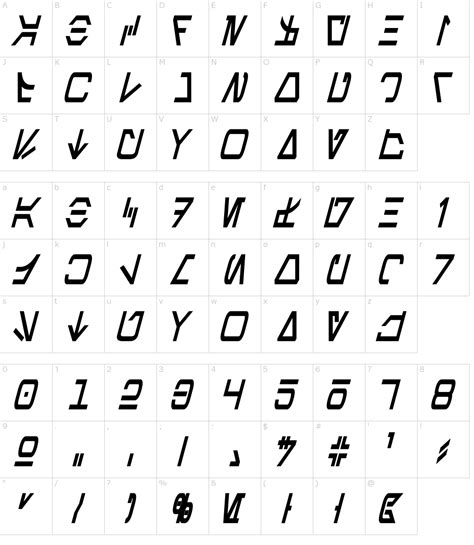
Aurebesh Font
Web this font is based on the legendary star wars galactic standard typeface. Converts english into aurebesh from the star wars universe. Web sith af by aurekfonts. Generate cool and amazing fonts by using aurebesh font generator. 1 to 15 of 26 results. Web want to translate to aurebesh (a.k.a. This is based on the old rpg version and includes all canonical characters. You've come to the right place. Web text generated by us for you. Aurebesh is a fictional language used in the star wars movies.
Web this font is based on the legendary star wars galactic standard typeface. Input any text to instantly transform it to aurebesh characters. 1 to 15 of 26 results. Converts english into aurebesh from the star wars universe. This is based on the old rpg version and includes all canonical characters. Generate cool and amazing fonts by using aurebesh font generator. Web want to translate to aurebesh (a.k.a. You've come to the right place. Aurebesh is a fictional language used in the star wars movies. Web text generated by us for you. Web sith af by aurekfonts.